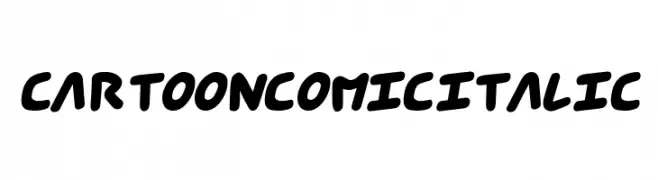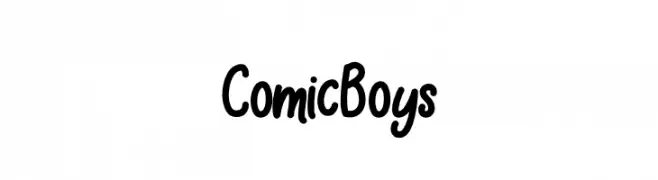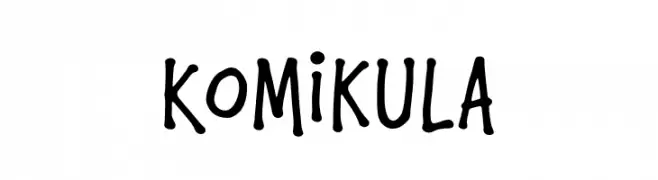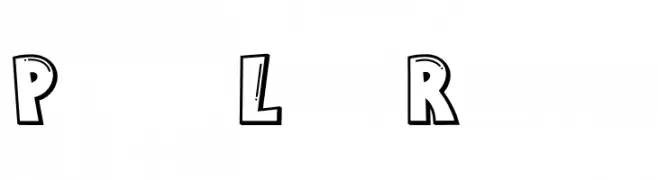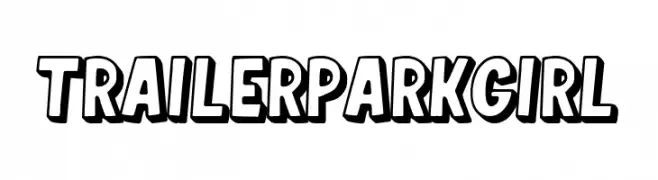
A playful, handwritten font with bold, rounded strokes and a comic book style.
A bold, playful, and italicized font with a cartoonish style.
A bold, playful font with cartoon-like characters and a dynamic, energetic style.
A bold, playful font with a comic book style from the 1980s.
A playful, bold font with a hand-drawn, comic-style appearance.
A bold, playful font with a 3D comic book style.
A bold, italic font with a dynamic, comic book style.
A playful, handwritten font with rounded edges and a casual style.
A bold, playful font with a shadowed, three-dimensional effect.
Hand-drawn, bold brush-style shapes and comic elements.